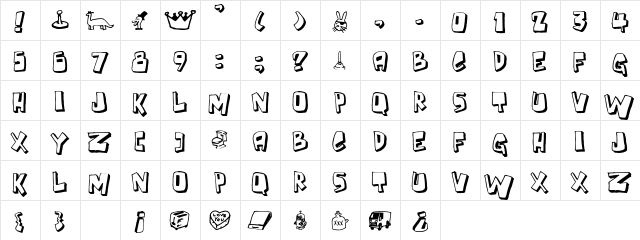
Bad Weekend Regular
Design Context for Bad Weekend Typeface
Bad Weekend is a composed and adaptable typeface that performs quietly and consistently across a wide range of design contexts.